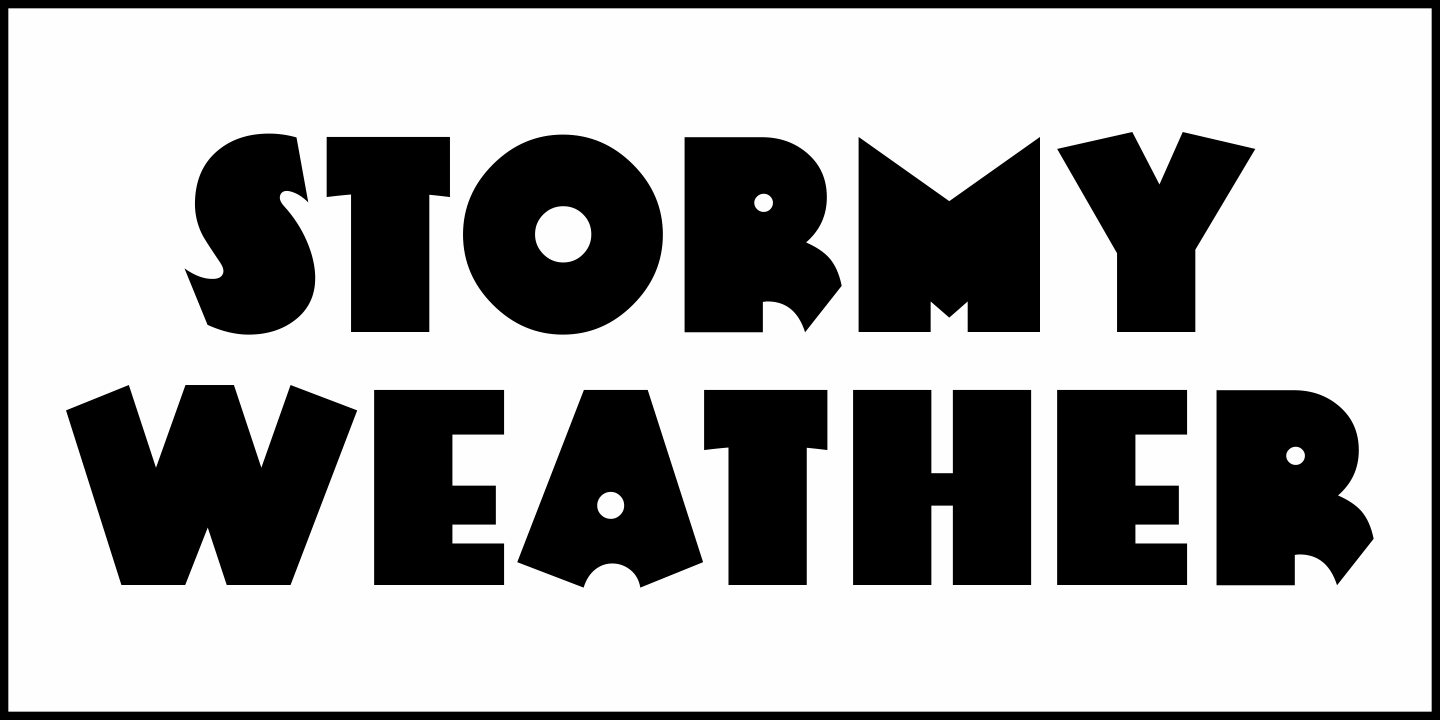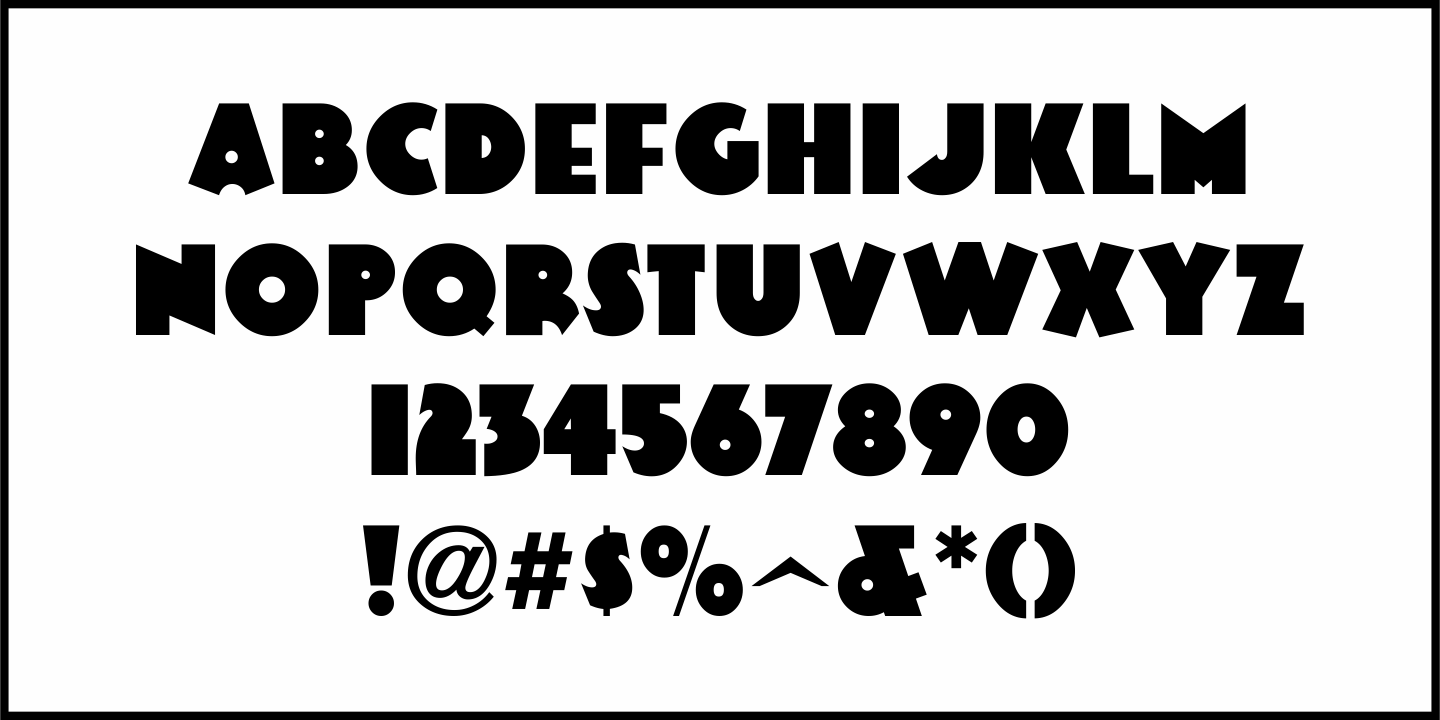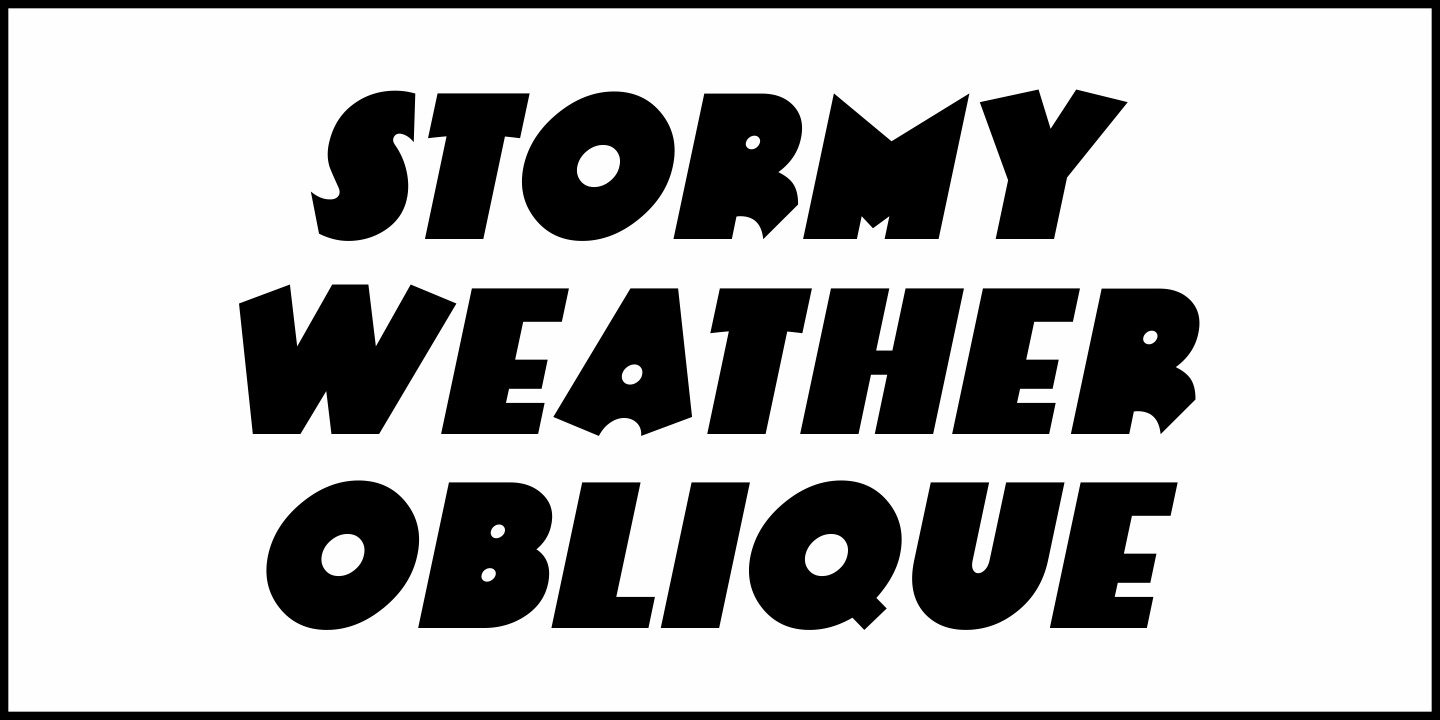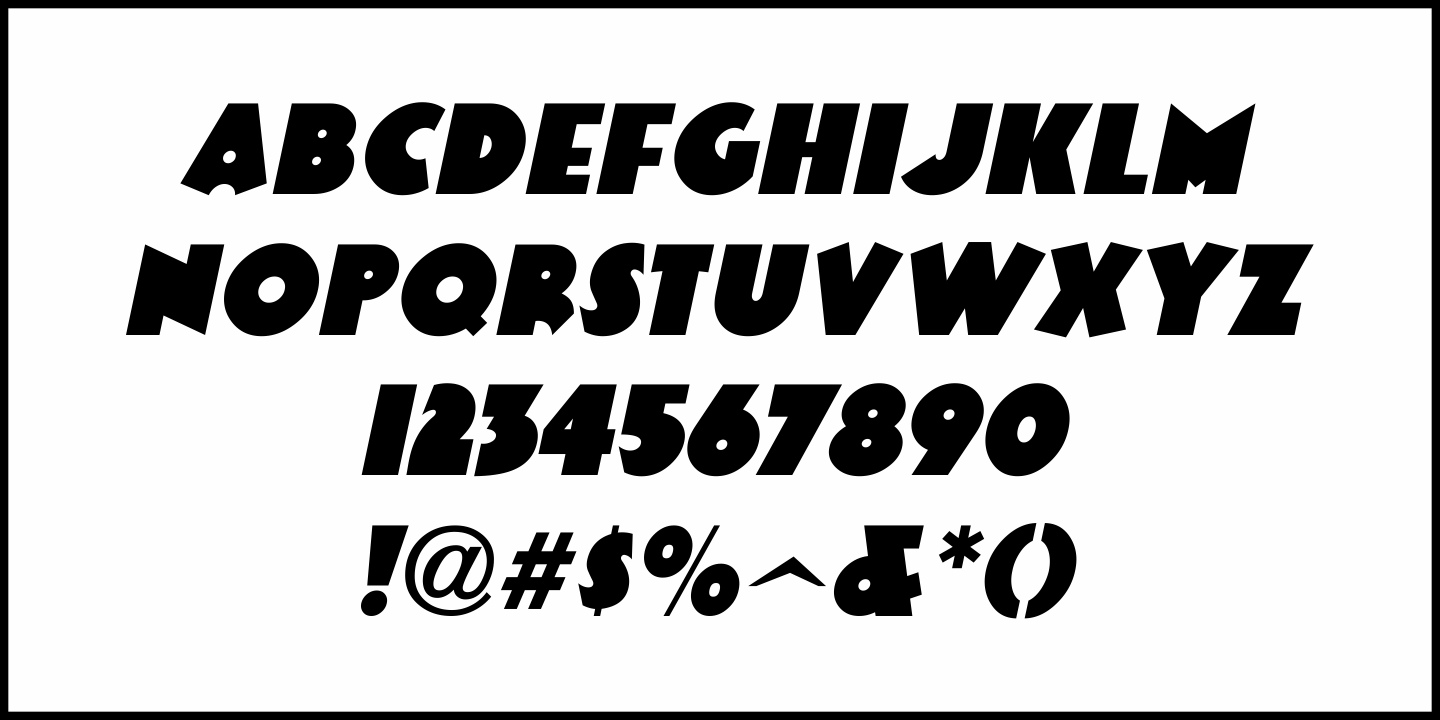
Stormy Weather
Hand lettering an ad for the [now lost] silent film drama "The Storm Daughter" in the March 15, 1924 issue of Motion Picture News inspired Stormy Weather JNL.
This ultra bold sans serif typeface with Art Nouveau influences is available in both regular and oblique versions.